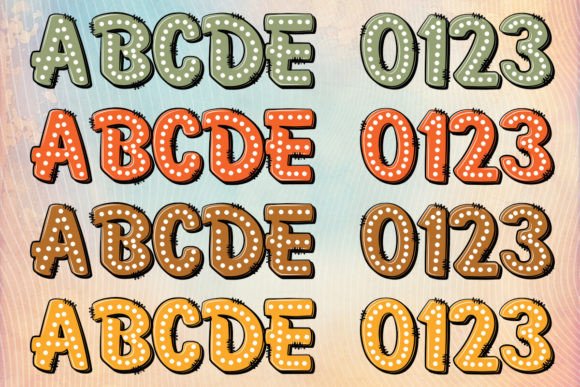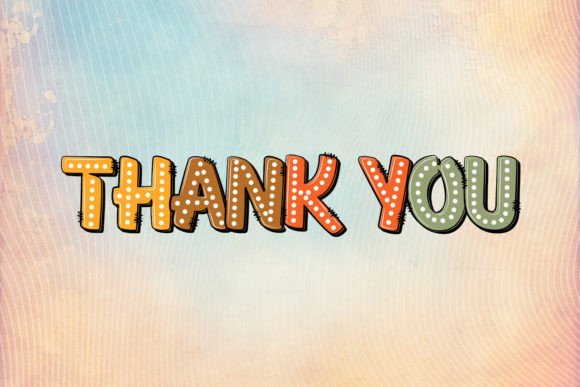
Introducing the Autumn Season Font: Elevate Your Holiday Designs
As the leaves change colors and the air grows crisper, the autumn season brings a sense of coziness and festivity. For designers and crafters, this time of year offers endless opportunities to create captivating content for Halloween, Thanksgiving, and Christmas. To help you make the most of this magical season, we present the Autumn Season Font – a versatile and eye-catching typeface that embodies the spirit of autumnal holidays.
A Font for Every Autumn Celebration
The Autumn Season Font is more than just a font – it’s a design companion that effortlessly balances modern sensibility with tradition. Whether you’re creating spooky content for Halloween, elevating Thanksgiving designs with a touch of sophistication, or adding a whimsical flair to Christmas projects, this font is the perfect choice. Its unique, distinct color ensures that your designs stand out and effectively capture the essence of each holiday.
Seamless Design Transition Through the Autumn Season
One of the standout features of the Autumn Season Font is its ability to help you smoothly transition your designs through the autumn season and into the heartwarming Christmas festivities. With this font, you can create a cohesive visual narrative that ties together the various holidays, ensuring that your brand or personal style remains consistent throughout the season.
Introducing ‘Hallothannksmas’ – A Font that Combines Holiday Cheer
Imagine a font that combines the spookiness of Halloween, the gratitude of Thanksgiving, and the joy of Christmas. Welcome to ‘Hallothannksmas,’ a design concept brought to life by the Autumn Season Font. This striking font infuses your creations with the charm of the autumn season, allowing your ideas to flourish and your designs to shine.
The Autumn Season Font is a versatile and captivating typeface that embodies the spirit of autumnal holidays. With its unique, distinct color and compatibility with various design programs and cutting machines, this font is perfect for designers and crafters looking to elevate their holiday designs. Whether you’re creating content for Halloween, Thanksgiving, or Christmas, the Autumn Season Font is the perfect companion to help you bring your ideas to life.